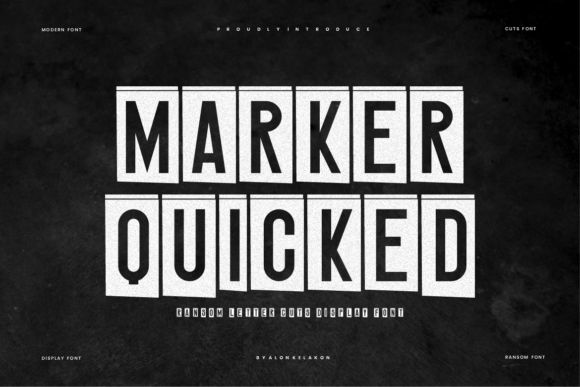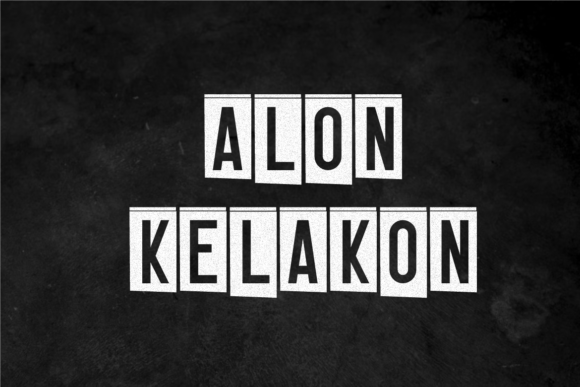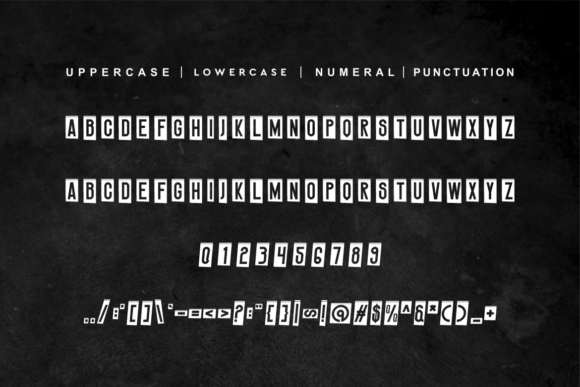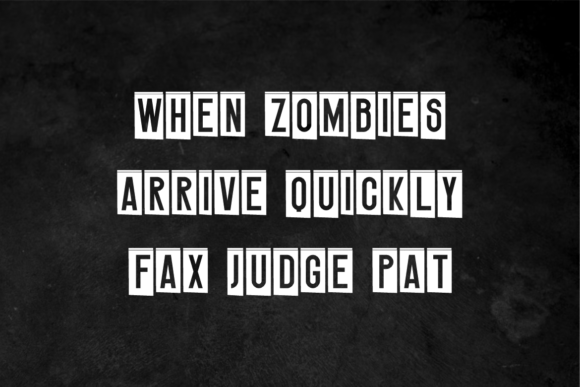
Ransom Cutsome Font
About the Ransom Cutsome Font
The wait is over! The incredible Ransom Cutsome Font is now available for your design toolkit. Ransom Cutsome is a bold and assertive font. No matter the topic, this font will be an incredible asset to your fonts’ library, as it has the potential to elevate any creation.
Ransom Cutsome excels in headline use, short impactful statements, and branding applications where a strong, assertive presence is desired. It’s ideal for posters, logos, and packaging designs requiring a bold visual impact. However, its weight and strong character make it unsuitable for body text or long-form content; readability suffers at smaller sizes. Avoid using it in user interfaces (UI) where legibility is paramount.
Its bold personality pairs well with clean, geometric sans-serifs like Futura or Helvetica for a modern, high-contrast look. For a softer contrast, a delicate serif like Garamond or a slightly more playful script font like Playfair Display could create effective balance, tempering Ransom Cutsome’s assertiveness.
The overall personality of Ransom Cutsome is powerful and confident, conveying authority and a sense of modern dynamism. This makes it a perfect choice for brands projecting strength, innovation, or luxury.
Ransom Cutsome Font Usage Examples
Ransom Cutsome Font Example